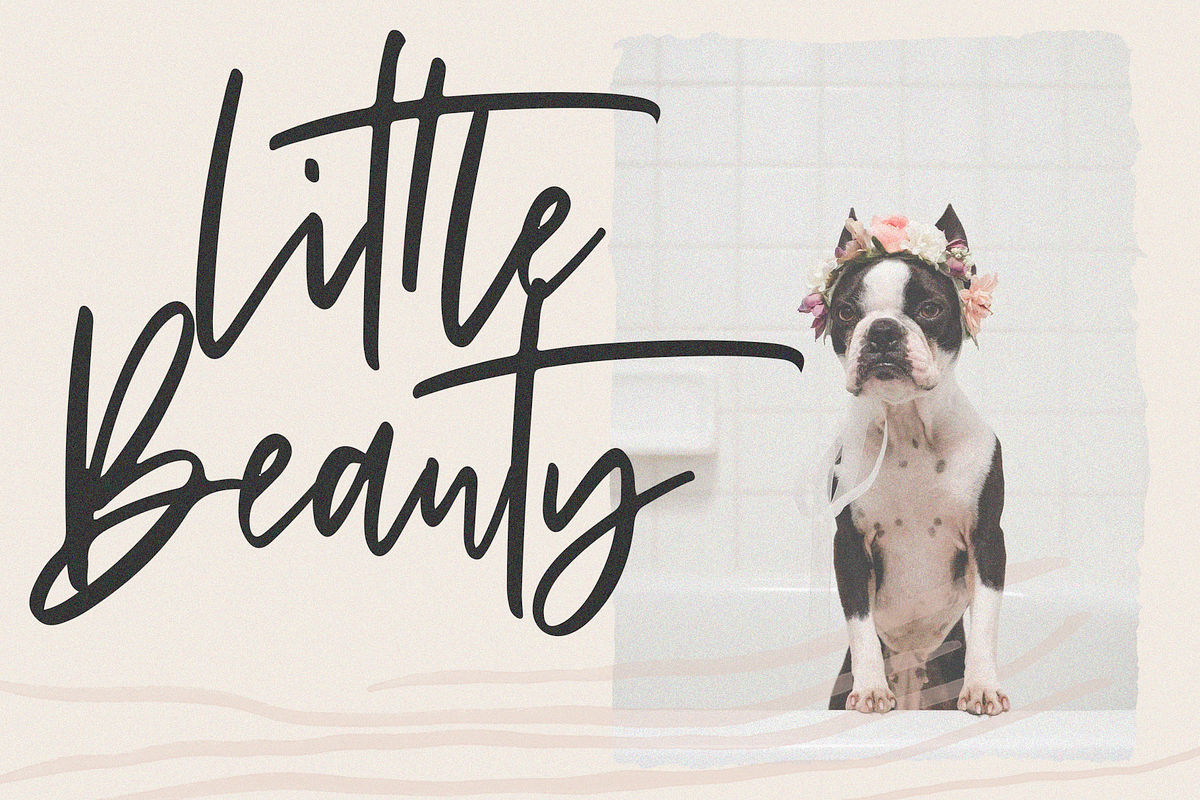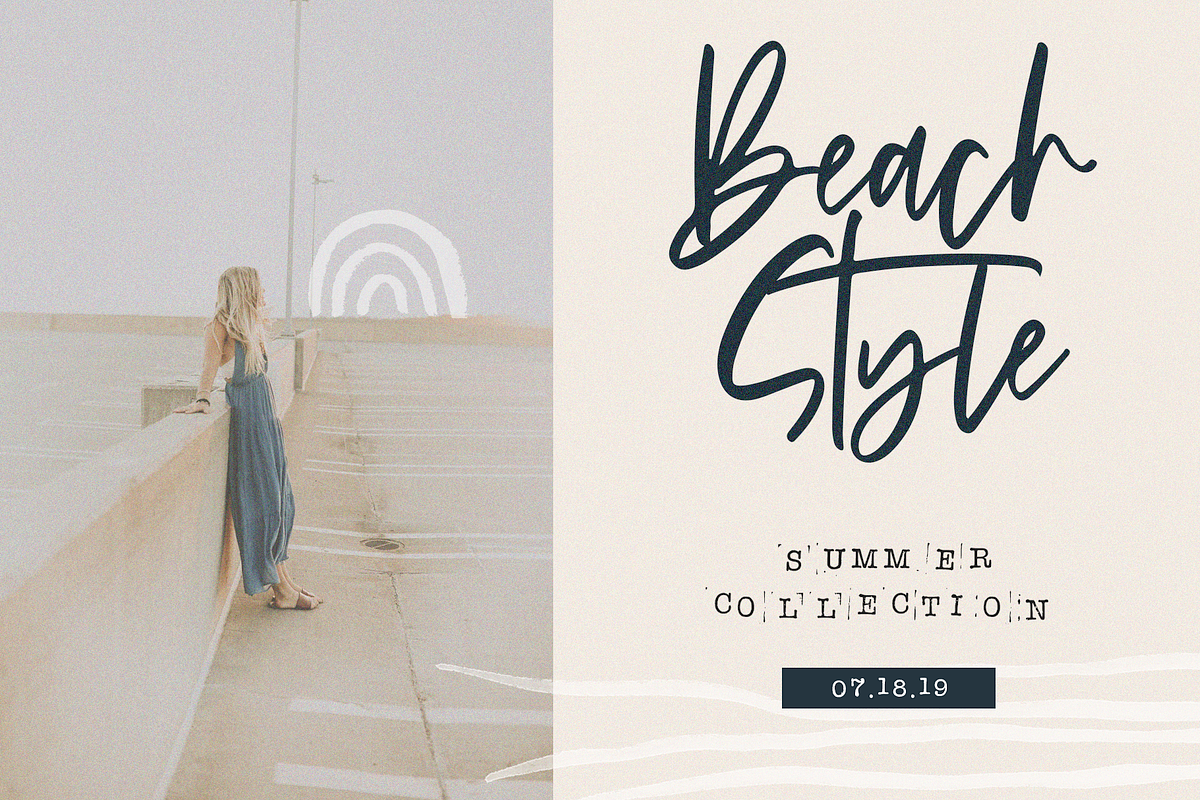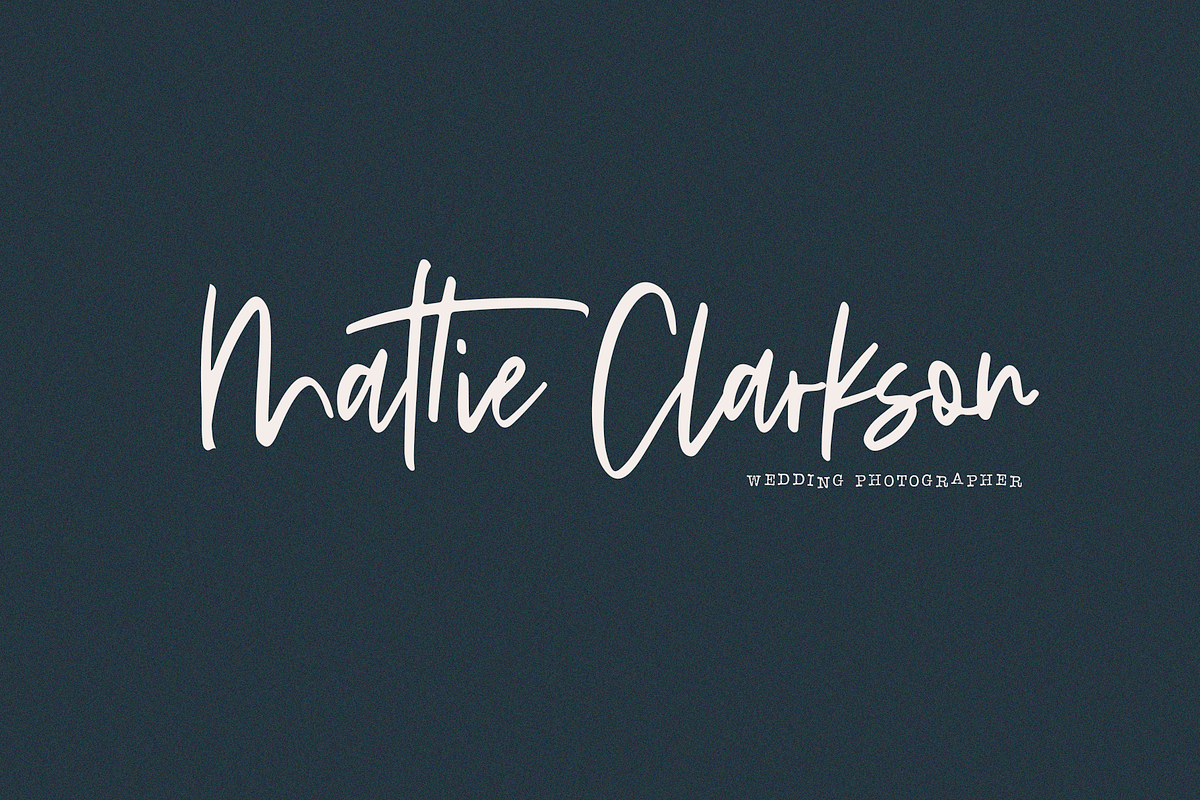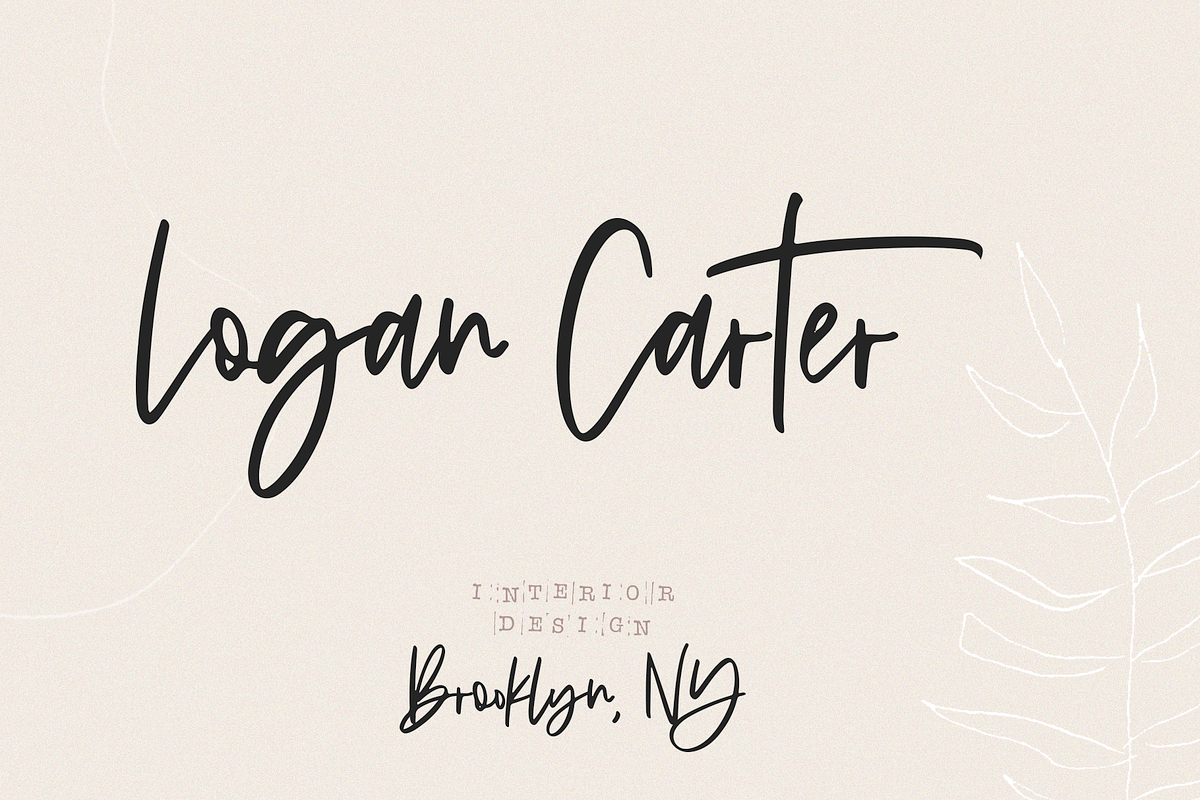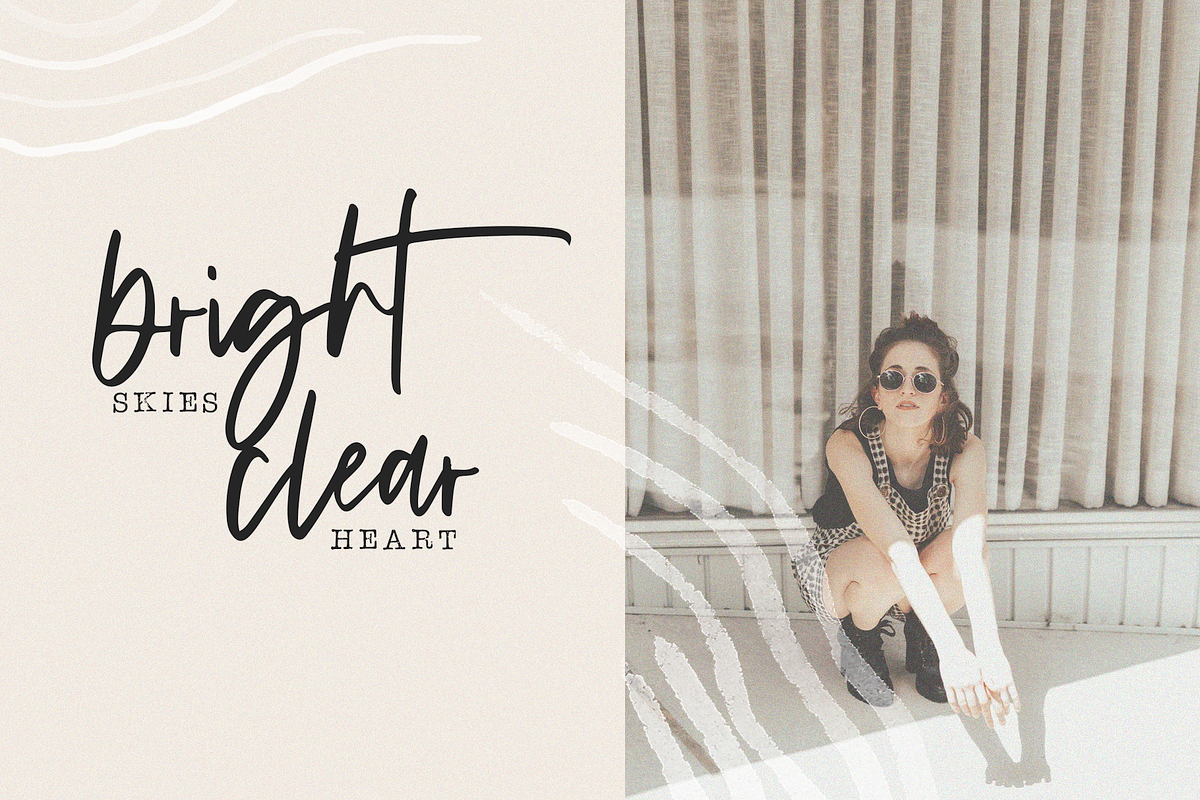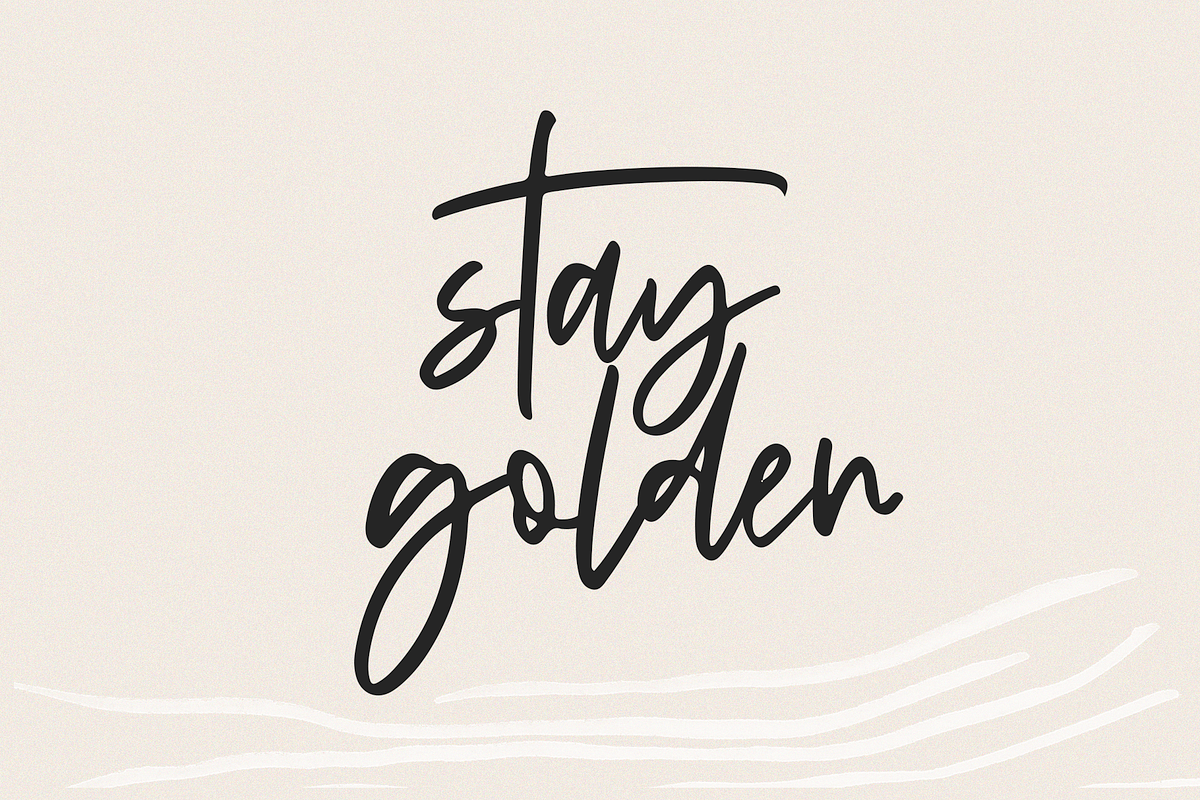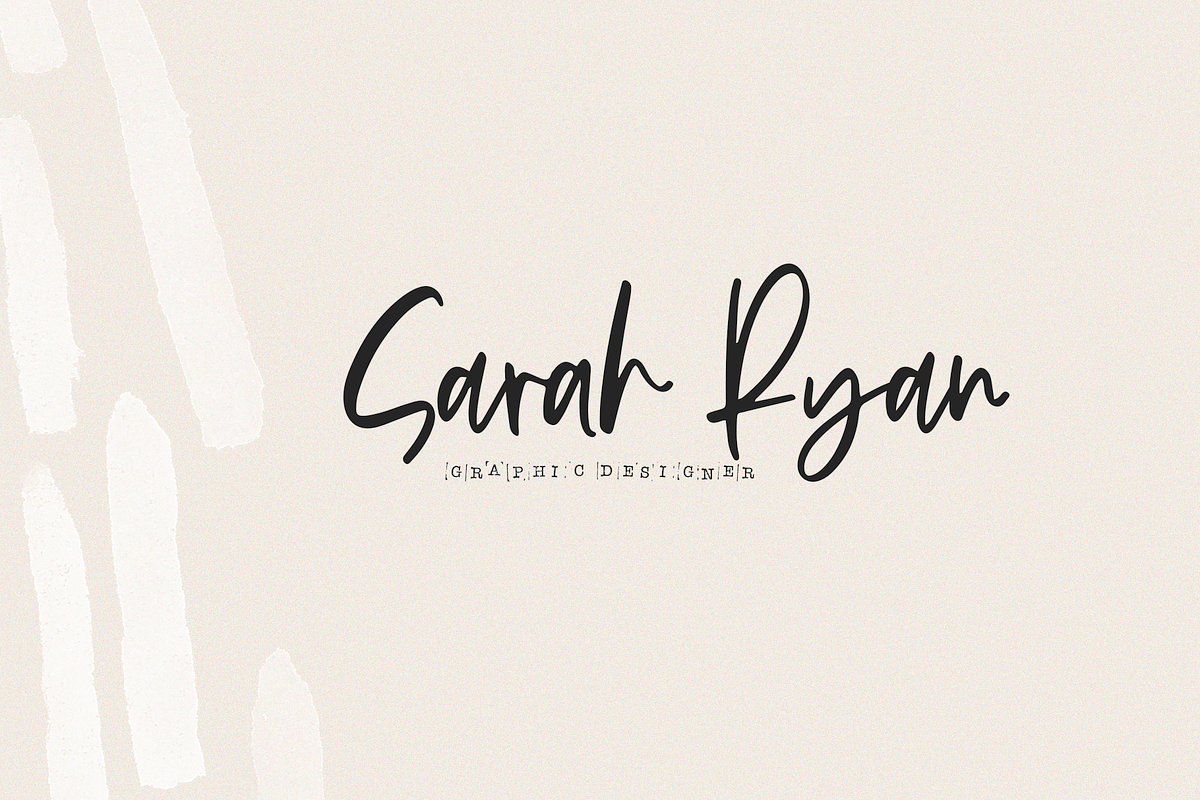
Sandcastle - Handwritten Script Font
Sandcastle is a chic handwritten script font.
This font is perfect for modern projects, headings, blogs, logos, brandings, invitations and more!
- Accent characters are included.
Sandcastle - Handwritten Script Font by KA Designs fits naturally into Branding, posters, packaging, typography.